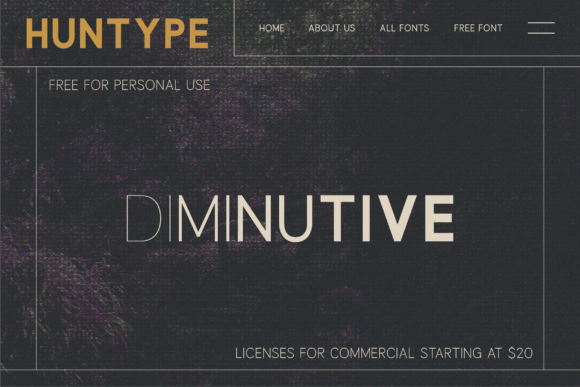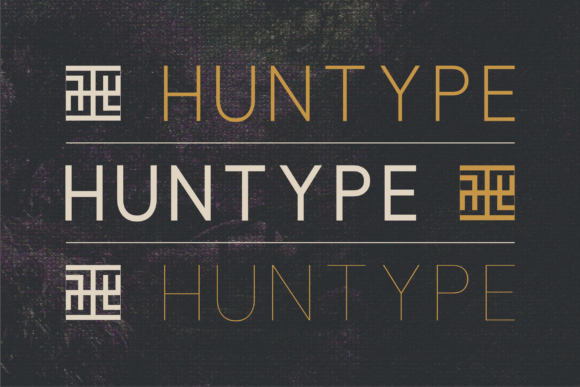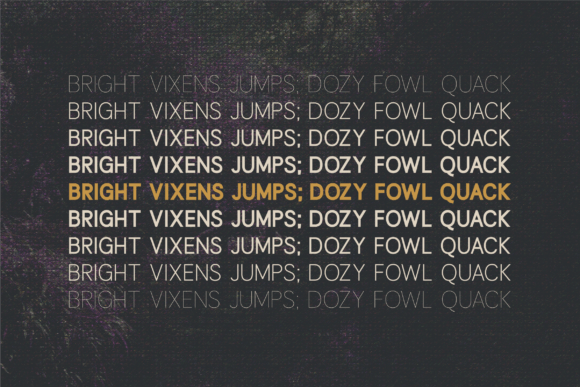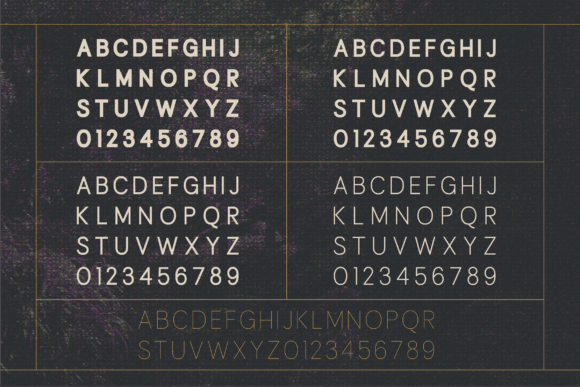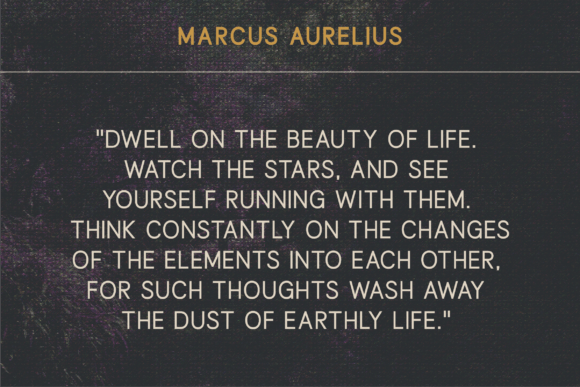
Introducing Diminutive Sans Serif Family: Elevate Your Designs with Elegance and Versatility
In the realm of typography, a well-crafted font can make all the difference in elevating your design projects from ordinary to extraordinary. Meet Diminutive Sans Serif Family, a thoughtfully designed font family that embodies the perfect blend of elegance, modernity, and versatility. With its five distinct weights – THIN, LIGHT, REGULAR, BOLD, and BLACK – this font family offers a wide range of creative possibilities, making it an ideal choice for designers and content creators alike.
The Art of Diminutive: A Symphony of Weights and Styles
Diminutive Sans Serif Family is more than just a font – it’s a comprehensive typographic system that caters to diverse design needs. The five weights of this font family are meticulously crafted to provide a seamless visual flow, allowing you to convey your message with precision and style.
- THIN: Ideal for subtle, delicate designs where a touch of elegance is required.
- LIGHT: Perfect for designs that require a slightly bolder statement without overpowering the content.
- REGULAR: The foundation of the Diminutive Family, offering a balanced and harmonious look.
- BOLD: Great for making a statement and drawing attention to key elements in your design.
- BLACK: The most dramatic and impactful weight, ideal for headlines and titles that demand attention.
Why Choose Diminutive Sans Serif Family?
So, what sets Diminutive apart from other font families? Here are a few compelling reasons why designers and content creators are gravitating towards this versatile font:
- Elegance and Sophistication: Diminutive’s sleek and modern design exudes a sense of refinement and luxury, perfect for high-end branding, editorials, and websites.
- Versatility: With five distinct weights, you can use Diminutive for a wide range of applications, from body text to headlines, and even captions.
- Legibility: The Diminutive Family boasts exceptional legibility, ensuring that your message is conveyed clearly and effectively, even at small font sizes.
- Contemporary Style: Diminutive’s contemporary design ensures that your projects look modern, fresh, and visually appealing.
Applications of Diminutive Sans Serif Family
The versatility of Diminutive Sans Serif Family makes it suitable for a wide range of design applications, including:
- Branding and Identity: Create stunning logos, business cards, and letterheads that exude elegance and sophistication.
- Editorials and Magazines: Use Diminutive for article titles, body text, and captions to create a visually appealing and engaging reading experience.
- Web Design: Enhance your website’s typography with Diminutive, creating a seamless and modern user experience.
- Packaging and Advertising: Make a bold statement with Diminutive’s range of weights, perfect for product labels, billboards, and print ads.
In conclusion, Diminutive Sans Serif Family is a game-changing font family that offers designers and content creators an unparalleled level of elegance, versatility, and sophistication. With its five distinct weights and seamless blend of modernity and refinement, Diminutive is poised to elevate your design projects to new heights. Whether you’re aiming for a subtle and delicate touch or a bold and impactful statement, this font family is the perfect choice for anyone seeking to create visually stunning and effective designs.